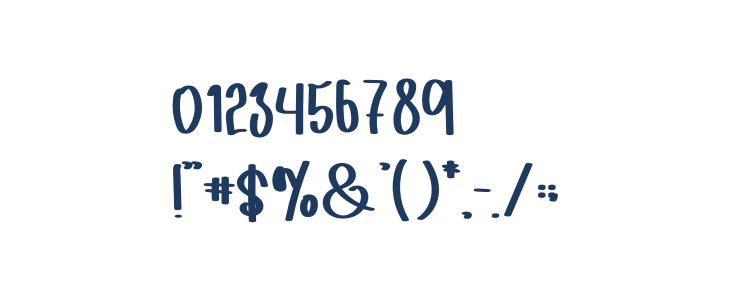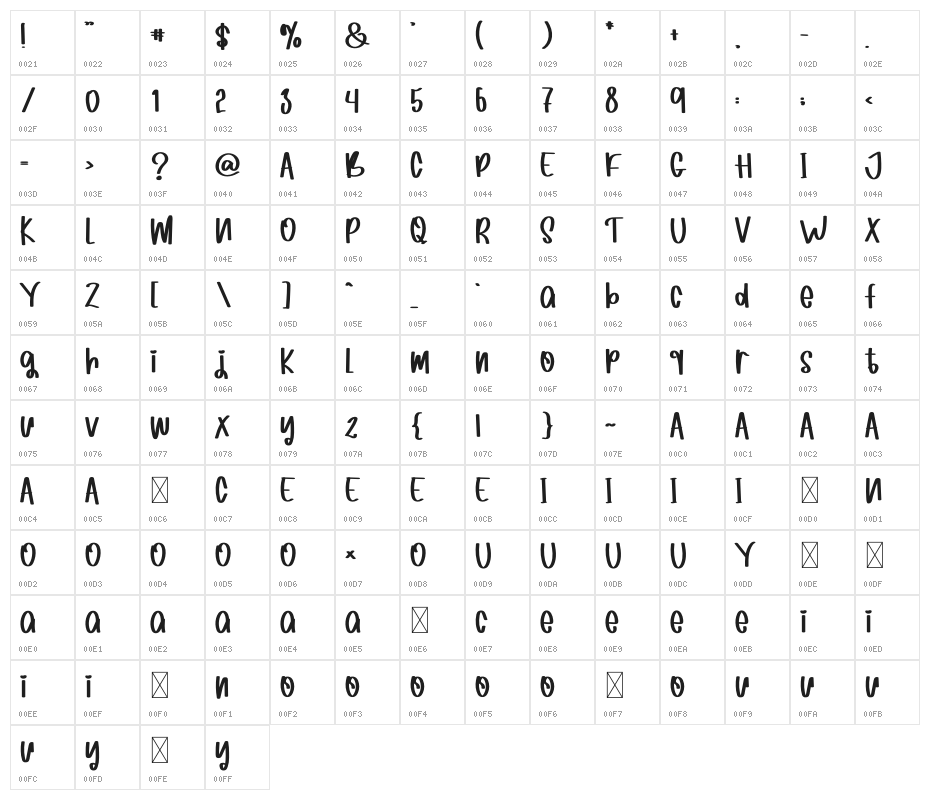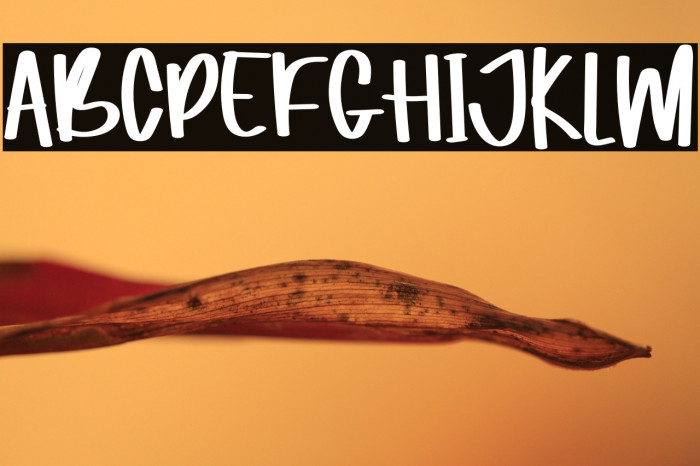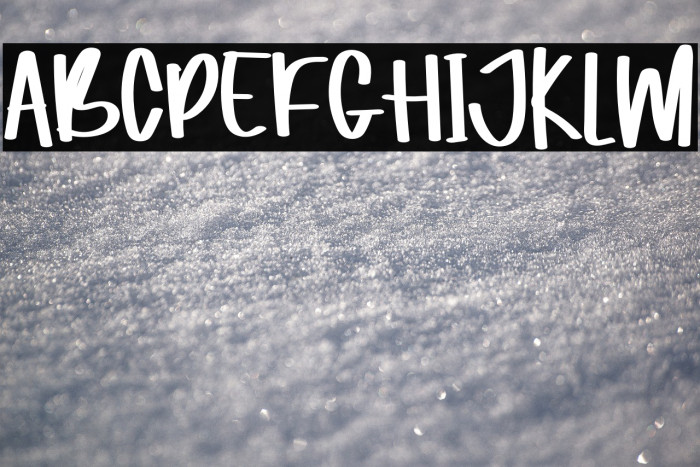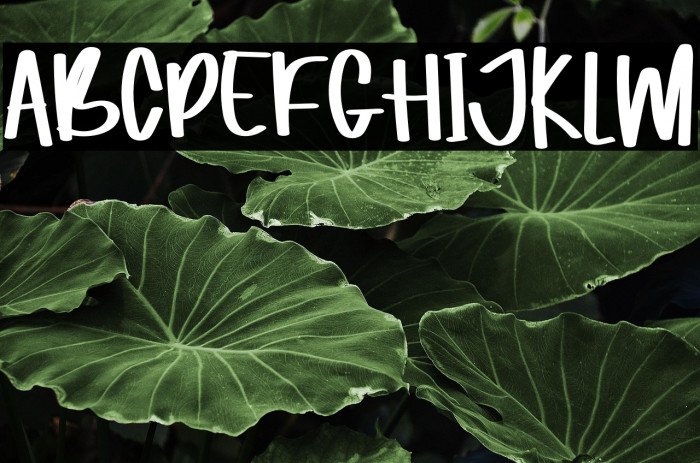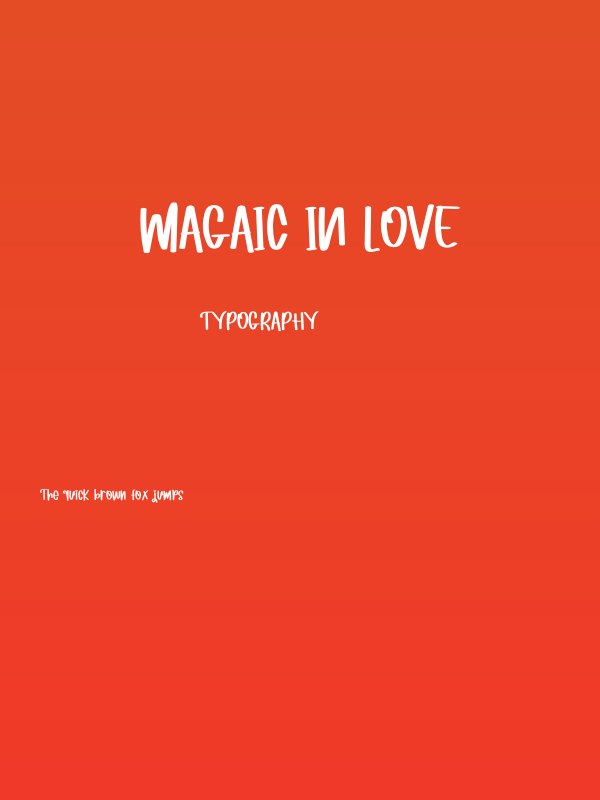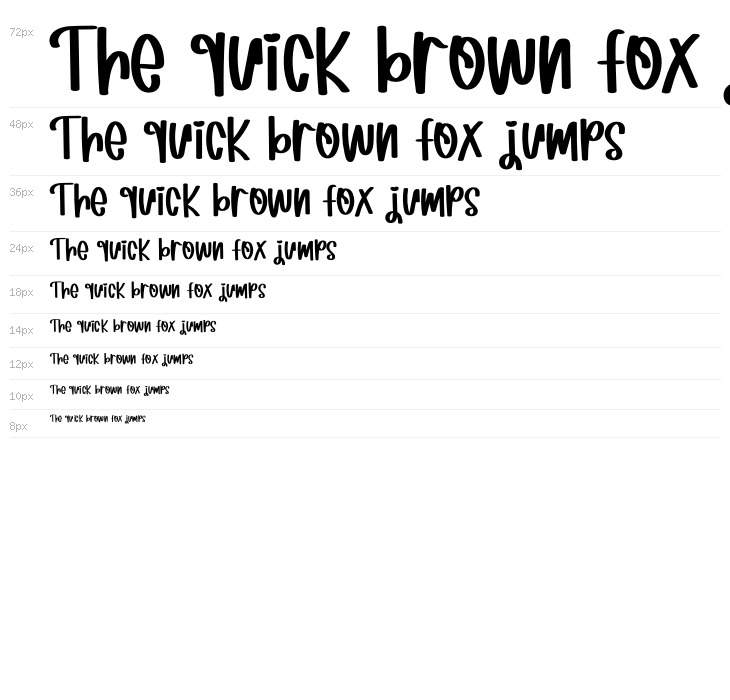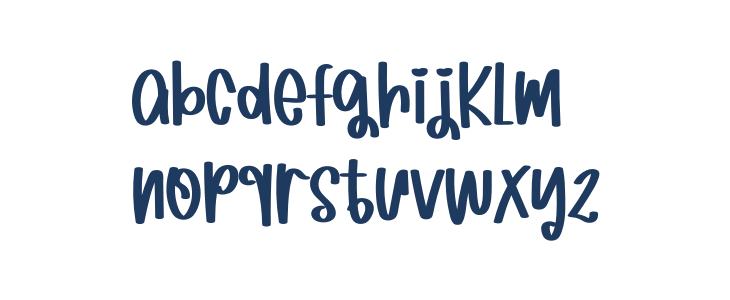
Magaic In Love Font
This font features a playful and whimsical handwritten style, characterized by its bold and flowing letterforms. The uppercase letters are tall and slightly narrow, with a consistent stroke width that gives them a uniform appearance. The lowercase letters maintain a similar style, with rounded edges and a casual, friendly feel. The numbers are clear and easy to read, matching the overall playful aesthetic. Special characters are creatively designed, adding to the font's charm. This font is perfect for projects that require a fun and informal touch.
Overall StylePlayful
Use CaseHeadlines, Logos, Informal text
Proposed ProjectsIdeal for greeting cards, children's books, playful branding, and social media graphics.